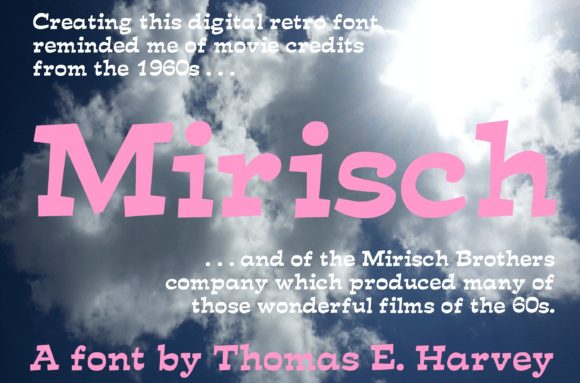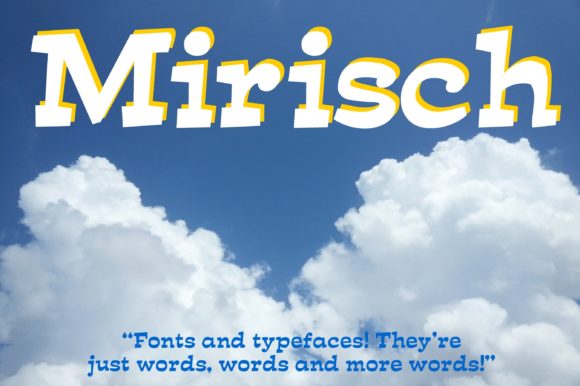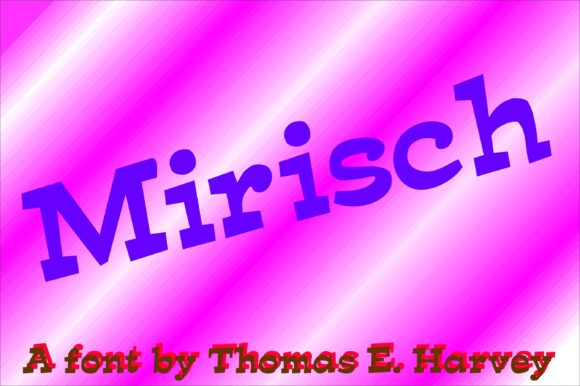
Mirisch
Mirisch: A Chunky Serif Font with Vintage Flair
Mirisch is a distinctive chunky serif font that draws inspiration from vintage hot-type styles. This versatile typeface combines a bold presence with a touch of nostalgia, making it suitable for a wide range of design applications.
Key Features of Mirisch
• Chunky Serif Design: Features thick, substantial letterforms with prominent serifs.
• Vintage-Inspired: Evokes the style and character of classic hot-type printing.
• Versatile Application: Suitable for both short-type situations and longer blocks of text.
• Bold Presence: Commands attention with its strong, weighty appearance.
• Flashy Gravitas: Combines eye-catching style with a sense of authority.
Ideal Uses for Mirisch
Mirisch’s unique characteristics make it particularly well-suited for:
• Logo design and branding
• Headlines and titles
• Short blocks of impactful text
• Vintage-inspired designs
• Posters and advertisements
• Book covers and editorial layouts
When incorporating Mirisch into your designs, consider these tips:
• Use for headlines or short blocks of text to maximize its chunky, vintage-inspired impact
• Experiment with different sizes to balance its bold presence in various layouts
• Take advantage of its versatility for both short-type situations and longer text blocks
Mirisch is an excellent choice for designers looking to add a chunky serif font with vintage flair to their typographic toolkit. Its ability to work well in both short-type situations and longer blocks of text makes it stand out in the world of typography. Whether you’re working on logo designs for bold brands, creating layouts for eye-catching posters, or developing content that requires a touch of flashy gravitas, Mirisch offers the perfect blend of vintage style and modern versatility.
Furthermore, Mirisch’s chunky design allows it to shine in various contexts. From vintage-inspired designs to more contemporary layouts that need a touch of retro charm, this font can elevate your projects. Its bold yet nostalgic style works particularly well in designs that require a strong and impactful mood with a nod to classic typography.
In conclusion, Mirisch is a font that truly captures the essence of vintage hot-type printing while offering modern versatility. Its ability to work well in both short-type situations and longer blocks of text showcases its flexibility. For those looking to add a dash of chunky, vintage-inspired style to their work, Mirisch can even enhance themed creations with its unique, bold character. It’s the perfect choice for designs that need to make a strong statement while maintaining a touch of classic typographic charm.